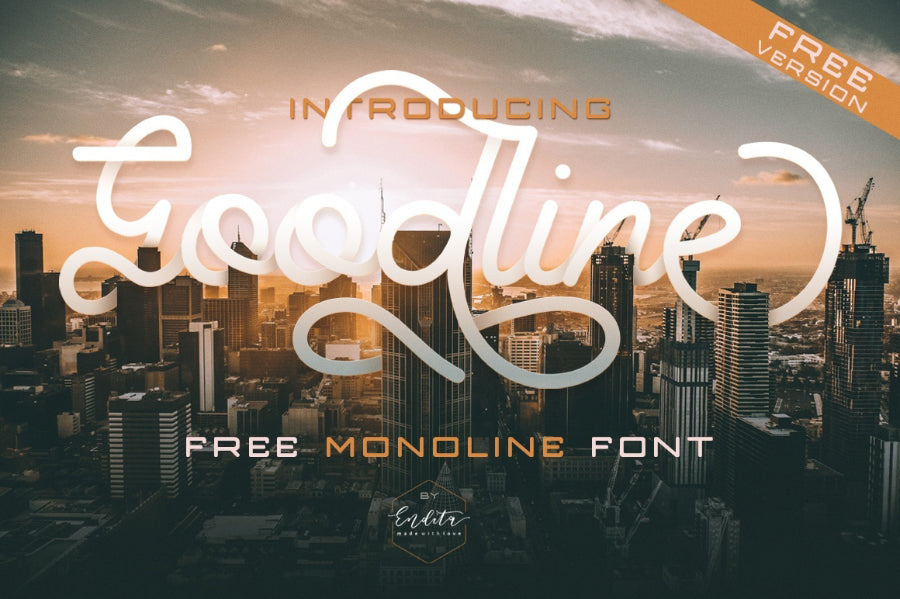
Free Goodline Script Font
Introducing you to the absolutely beautiful free goodline script font. This is a downloadable free typeface file brought to you by Free Design Resources. Easily amaze your audience with this beautiful font and make your graphic designs pop up from the crowd.